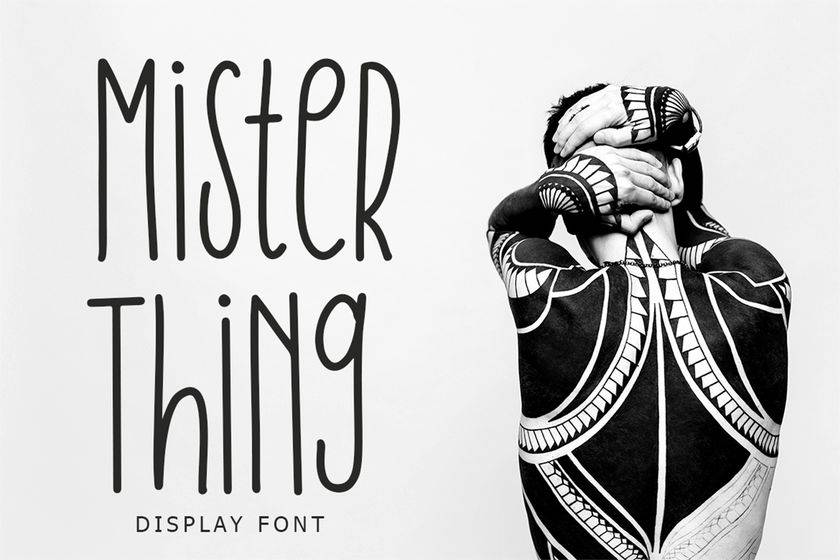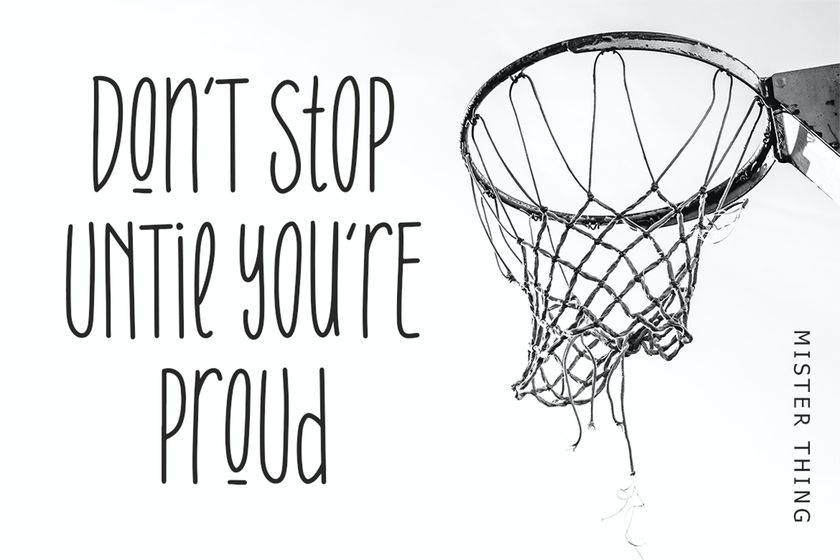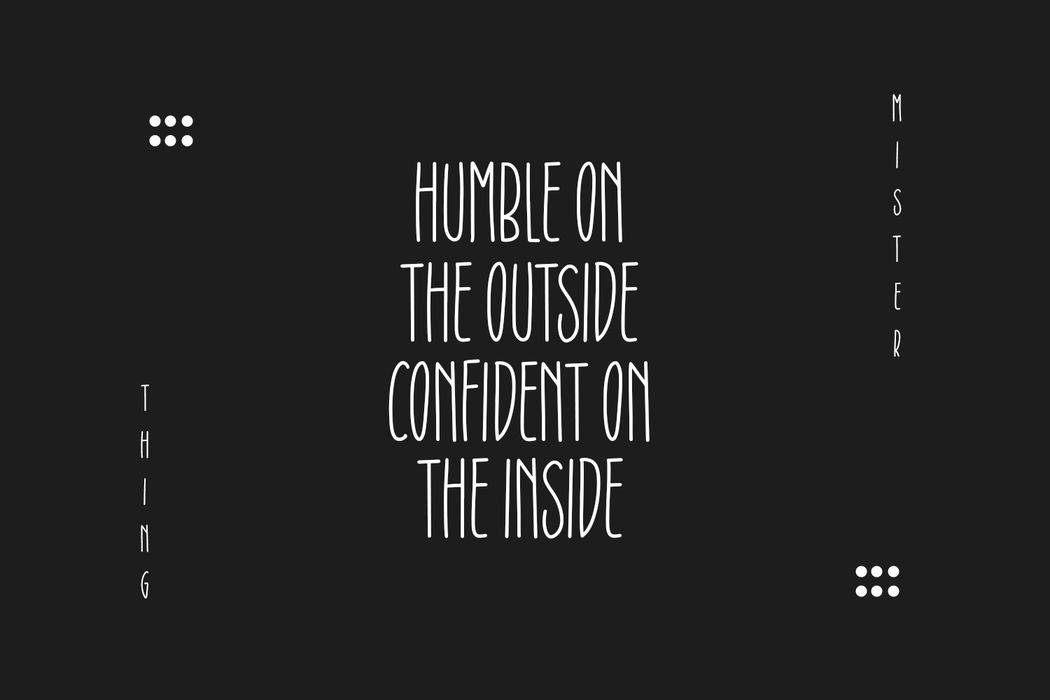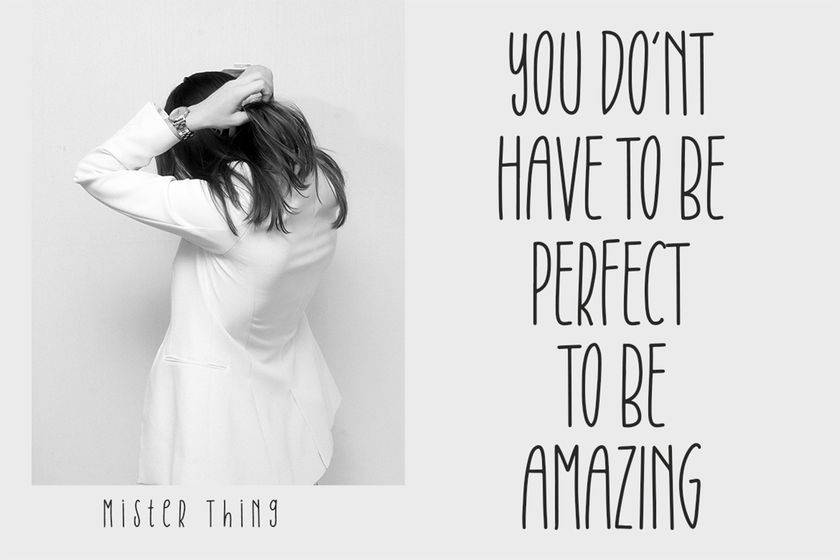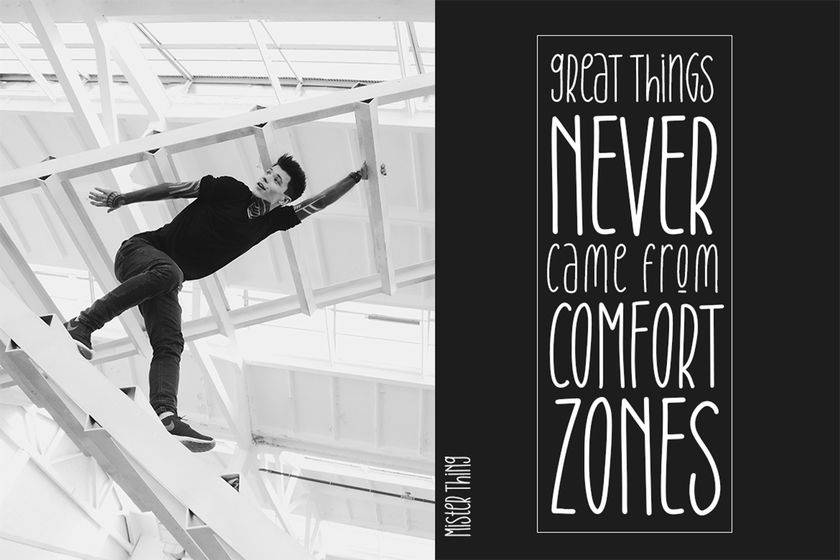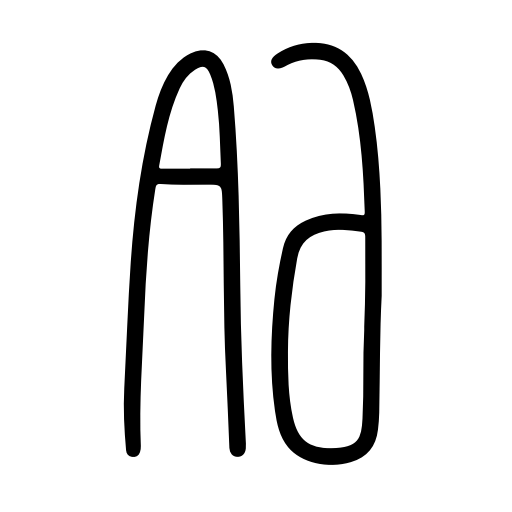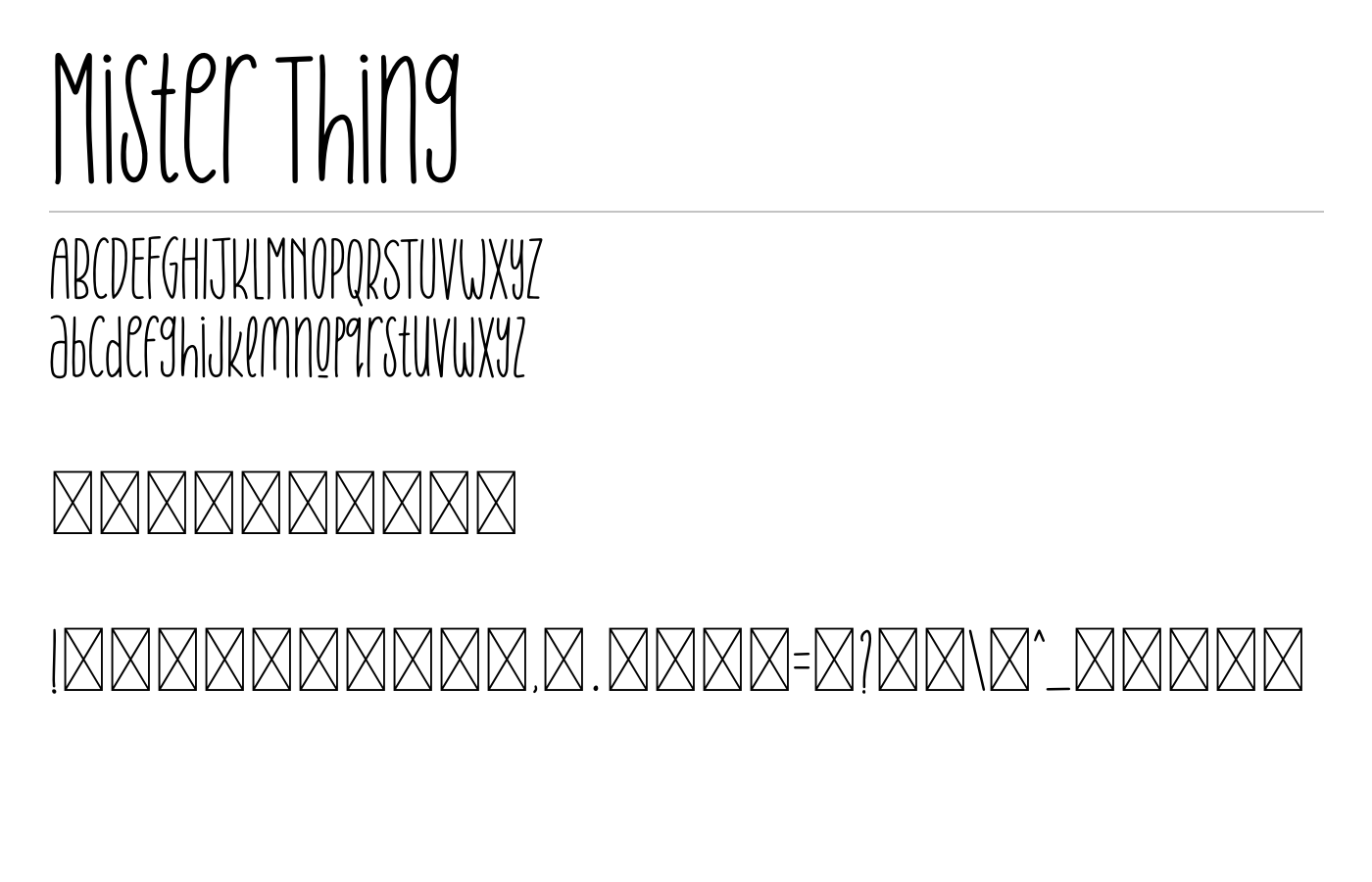
Mister Thing is a tall, narrow sans serif font with a playful and hand-drawn feel. Its slender letterforms and uneven strokes give it a quirky, informal charm, making it ideal for creative projects, casual branding, and fun headlines. This font works well where a friendly, approachable style is desired, especially in children’s books, invitations, or artistic designs.
Mister Thing Font
About Mister Thing Font
| Font family | Mister Thing Font |
| Release date | 2020-12-19 |
| Designer | Ana Natalia |